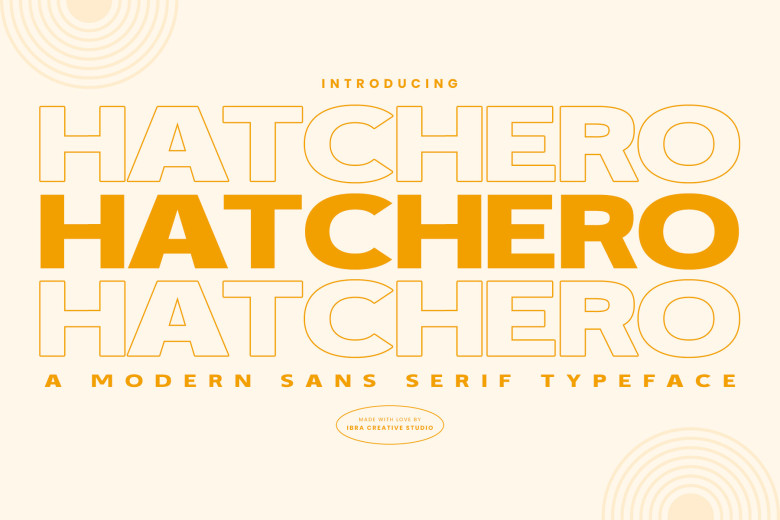
Hatchero is a modern sans-serif typeface that exudes modernity and versatility in typography. Distinguished by crisp shapes and delicate proportions that give an aesthetic that is sleek and minimal, Hatchero makes an excellent choice for editorial layouts, digital interfaces or corporate brand identities as its classic elegance seamlessly fits into different visual environments.
Simplicity of design is its strength, offering clear readability while still conveying modern elegance.
Hatchero Sans Serif Font